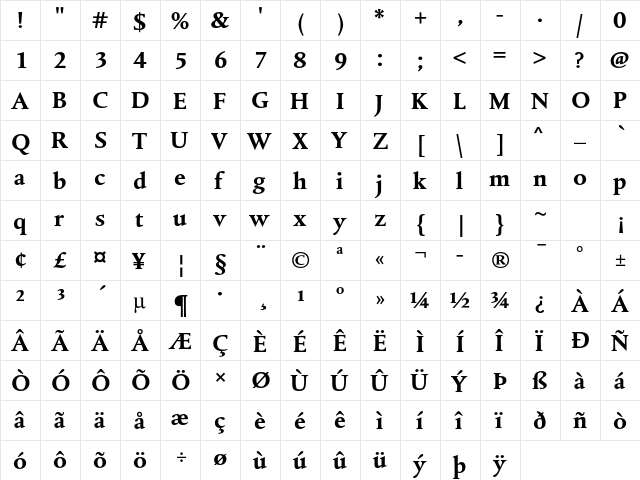
Albertina MT Std Bold
Design Context for Albertina MT Std Typeface
Albertina MT Std is a composed and adaptable typeface that performs quietly and consistently across a wide range of design contexts. Its bold stroke weight gives it real presence on the page.